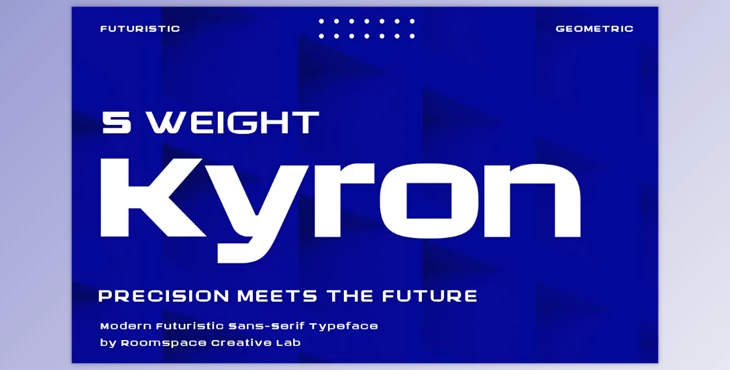
Kyron - Futuristic Modern Font:
Kyron is a contemporary sans serif font family designed to provide a modern, professional aesthetic for various design projects. Available in five distinct weights ranging from Regular to ExtraBold, Kyron offers designers the flexibility needed for everything from branding and logo design to web and print applications.
Its clean lines, balanced structure, and sleek appearance make it a versatile choice, ensuring clarity and readability at any size. Kyron’s luxurious yet contemporary style makes it ideal for businesses and creatives seeking a polished, trustworthy feel for their visual identity.
- Available in Regular to Extra-Bold weights
- A sleek, modern sans-serif style with an elegant, luxurious feel
- Perfect for logo, branding, and editorial design projects
- Pairs contemporary aesthetics with refined sophistication
- Multilingual support, with numerals and punctuation, included